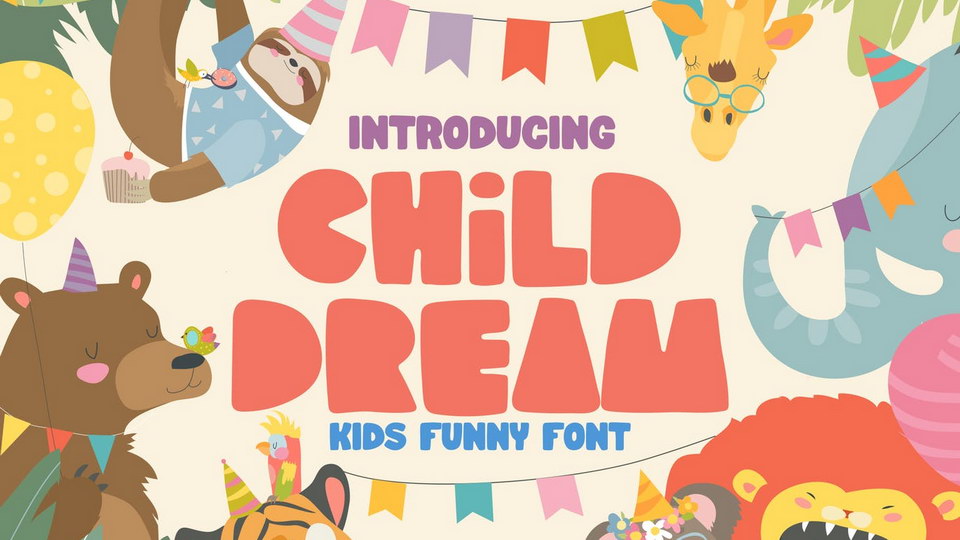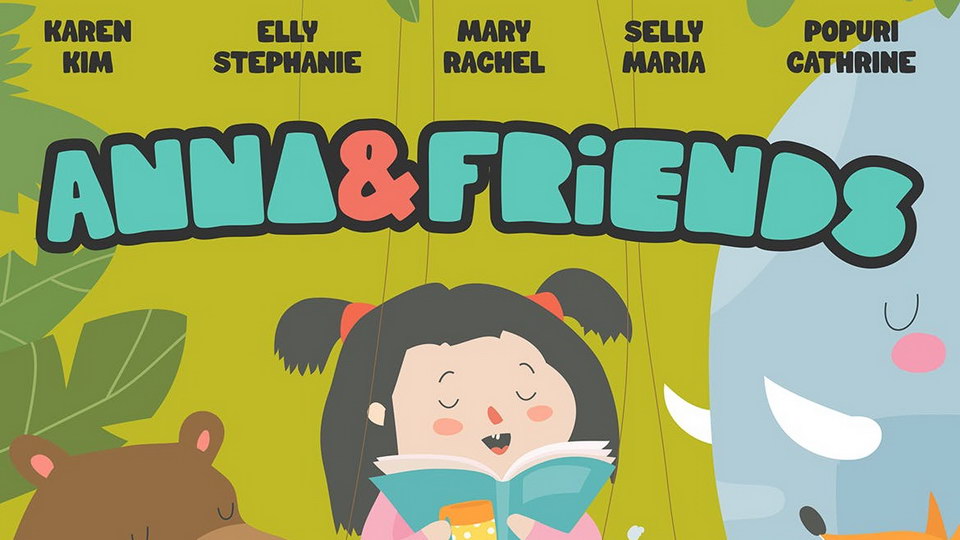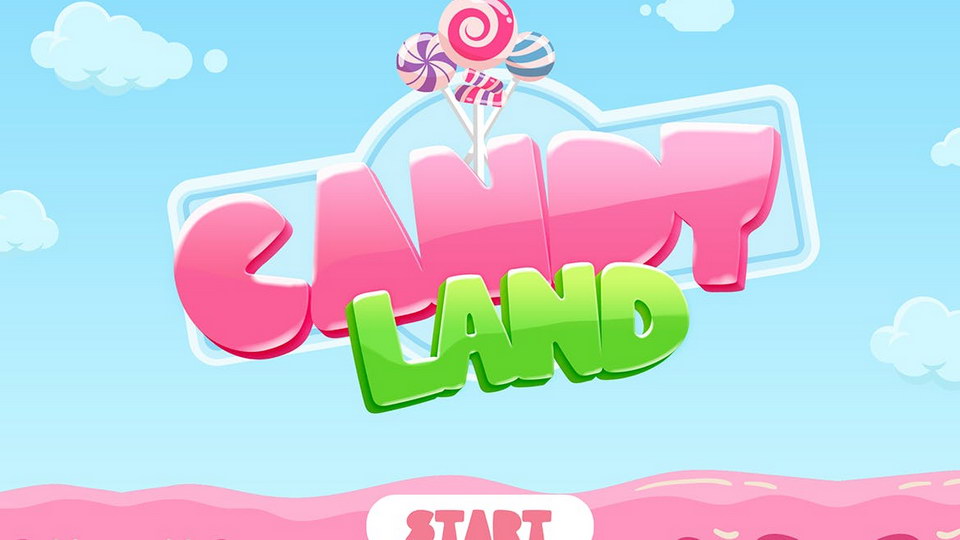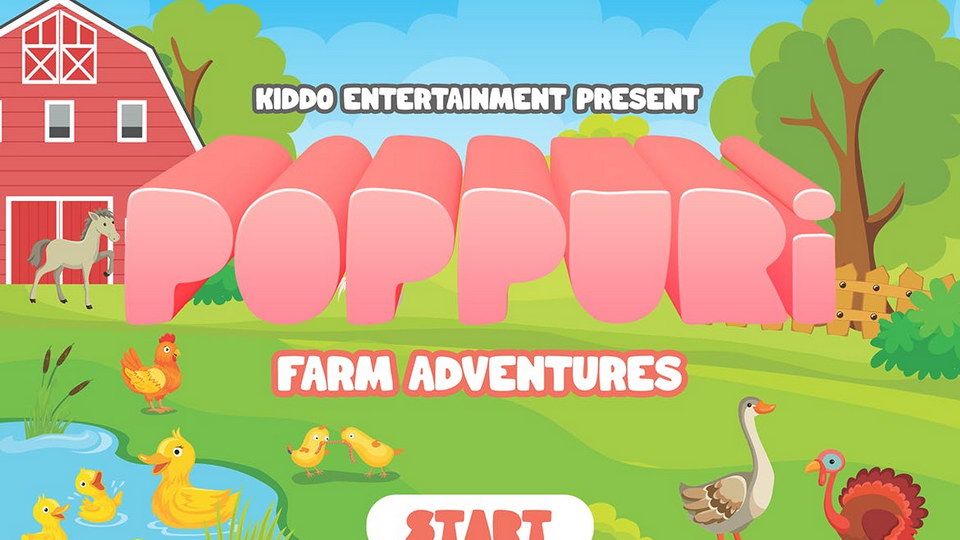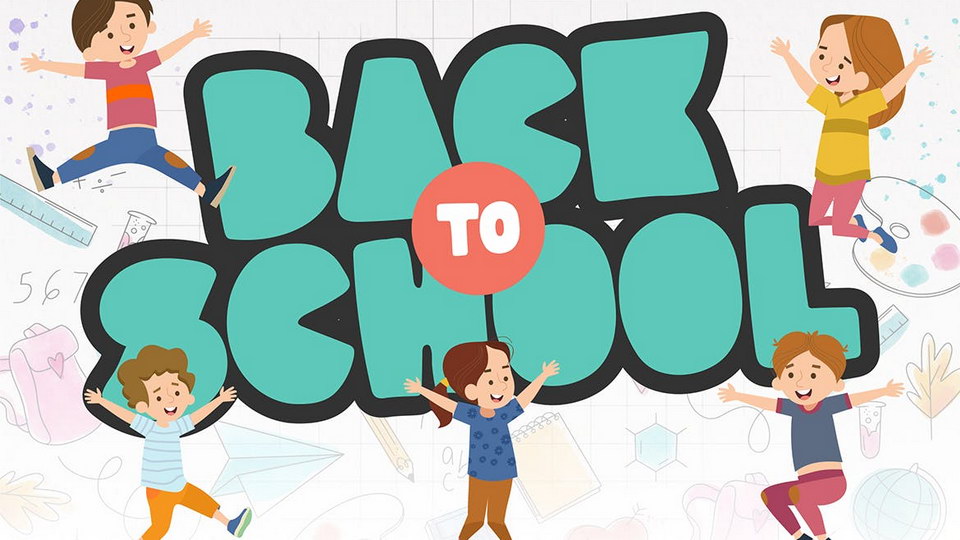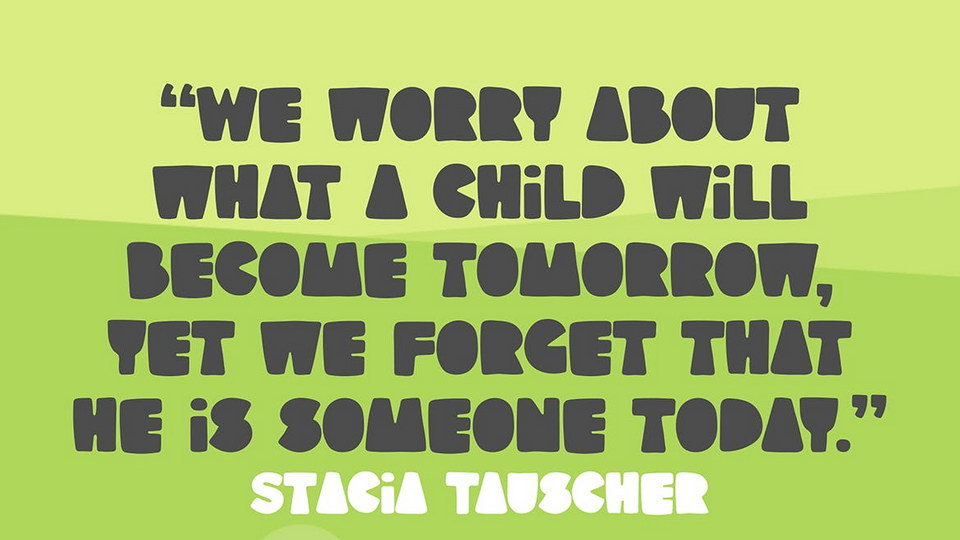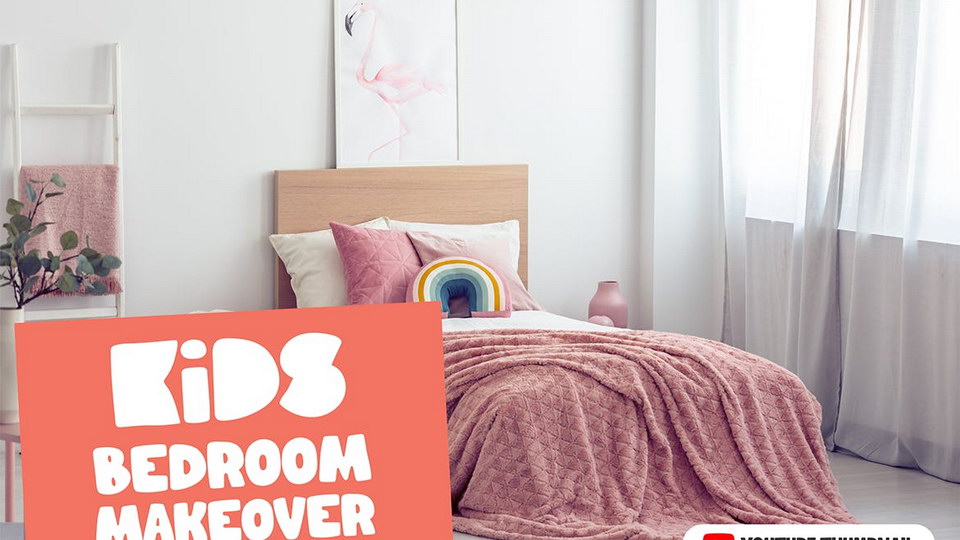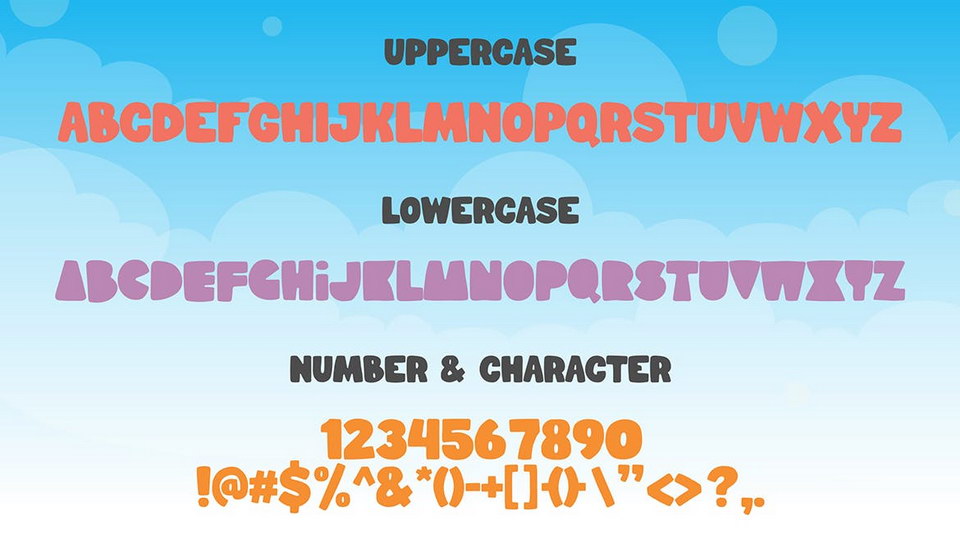
Child Dream – Kids Block Font
Having a blocky shape with a lot of joy in it, will make Child Dream emphasize on every word you put on the screen. Suit perfectly for Kids niche, Online Games, poster, movie title, fast food menu, magazine, youtube covers, youtube thumbnails, social media page covers and so on…